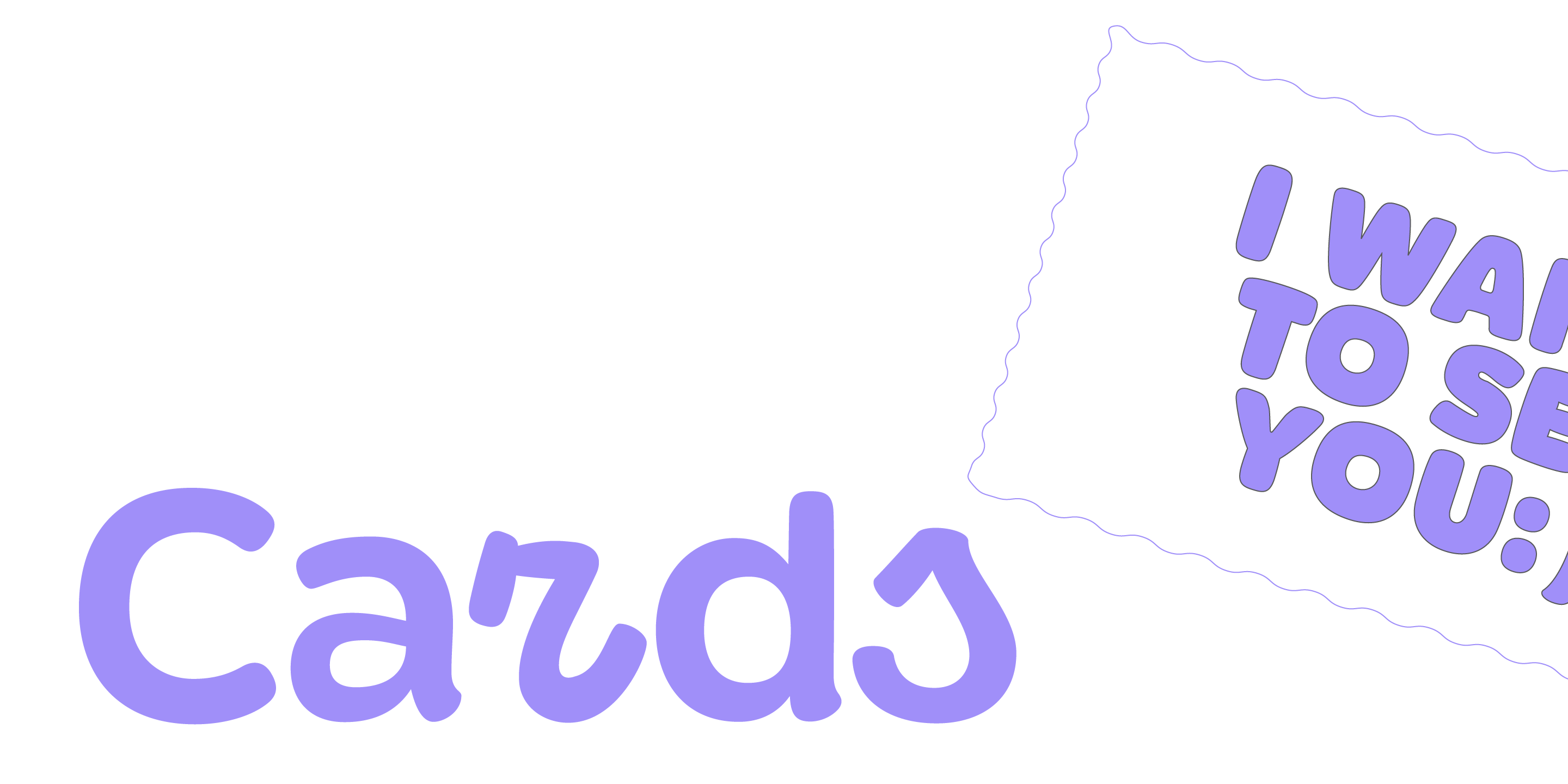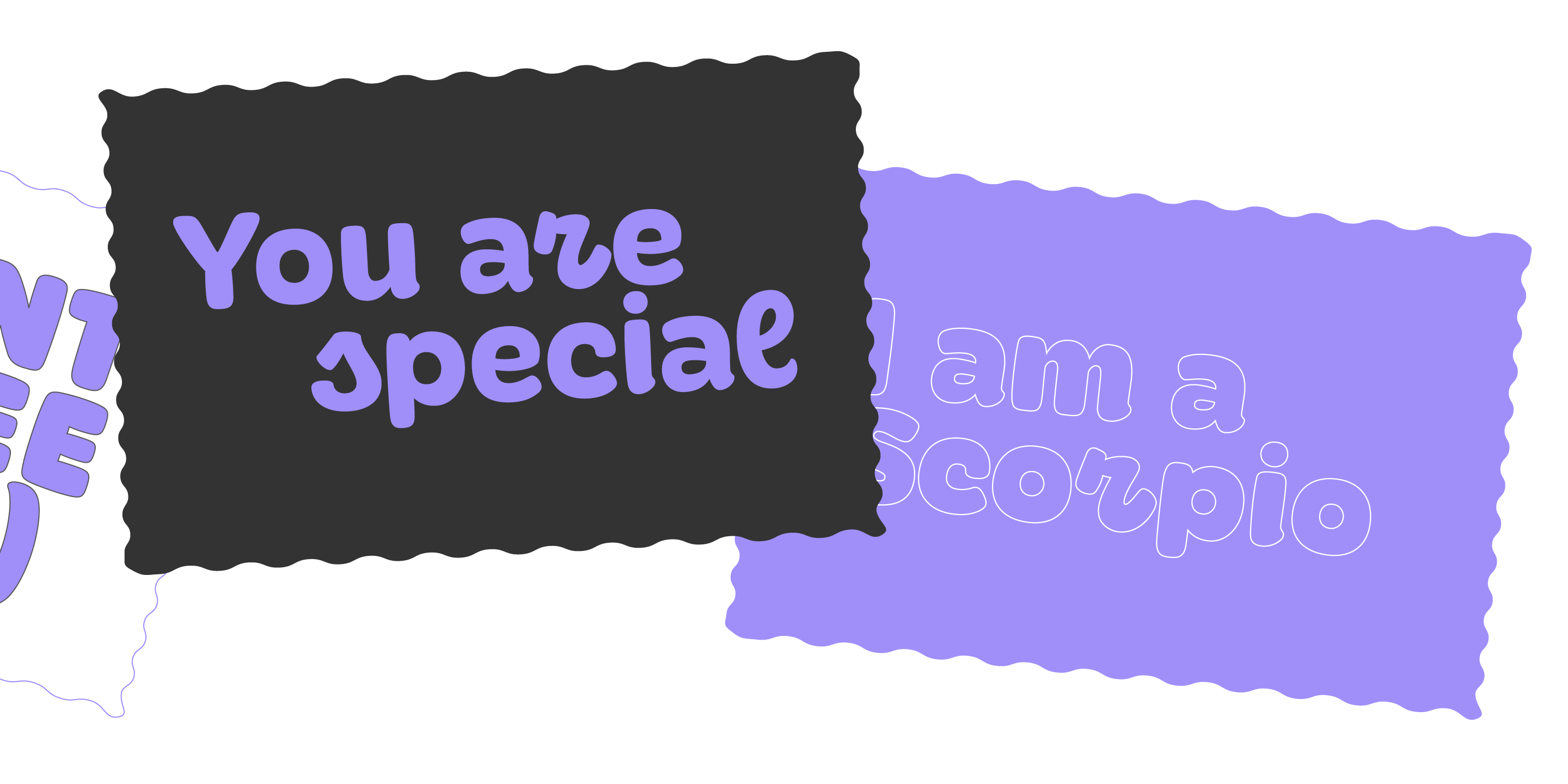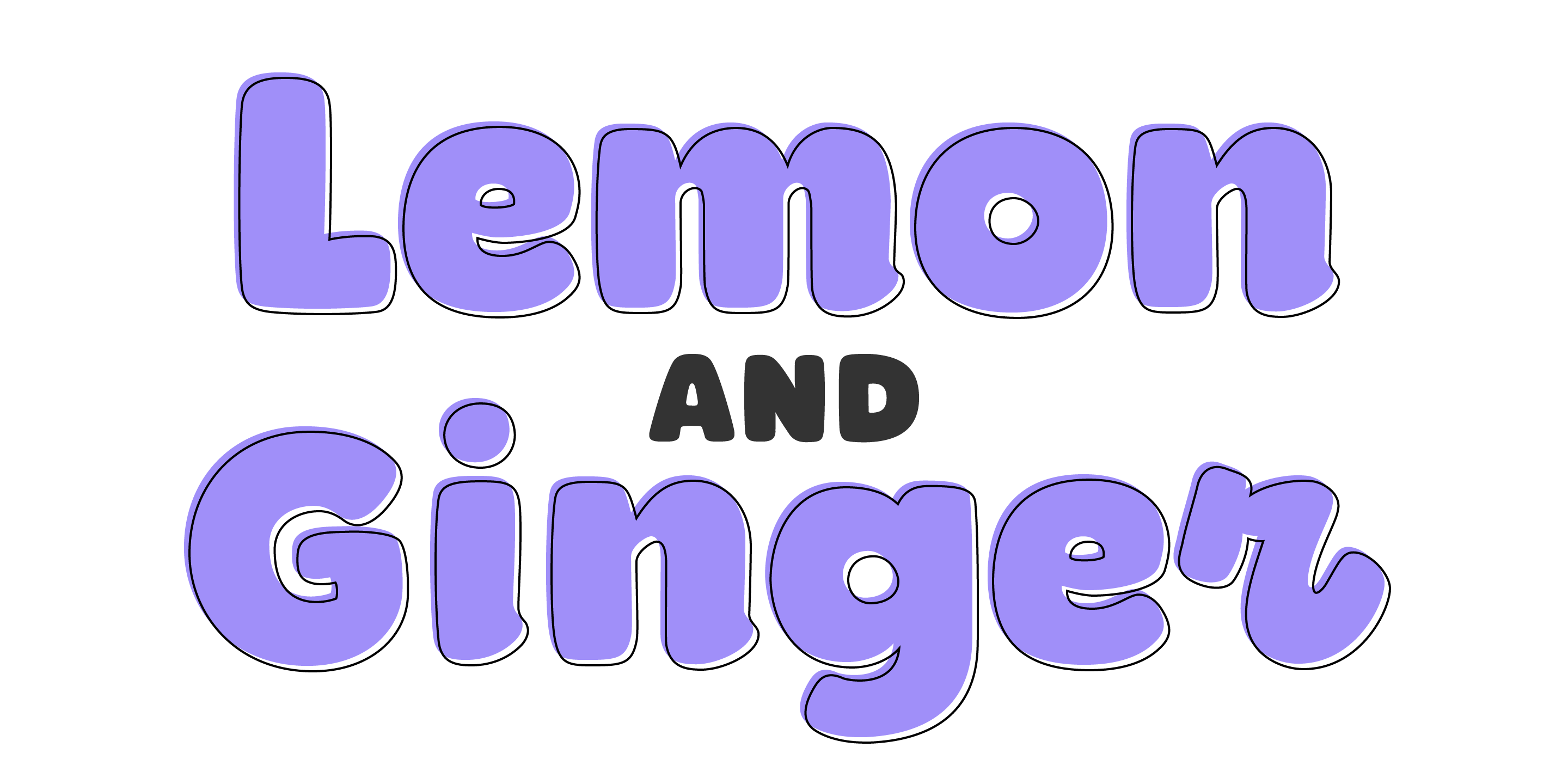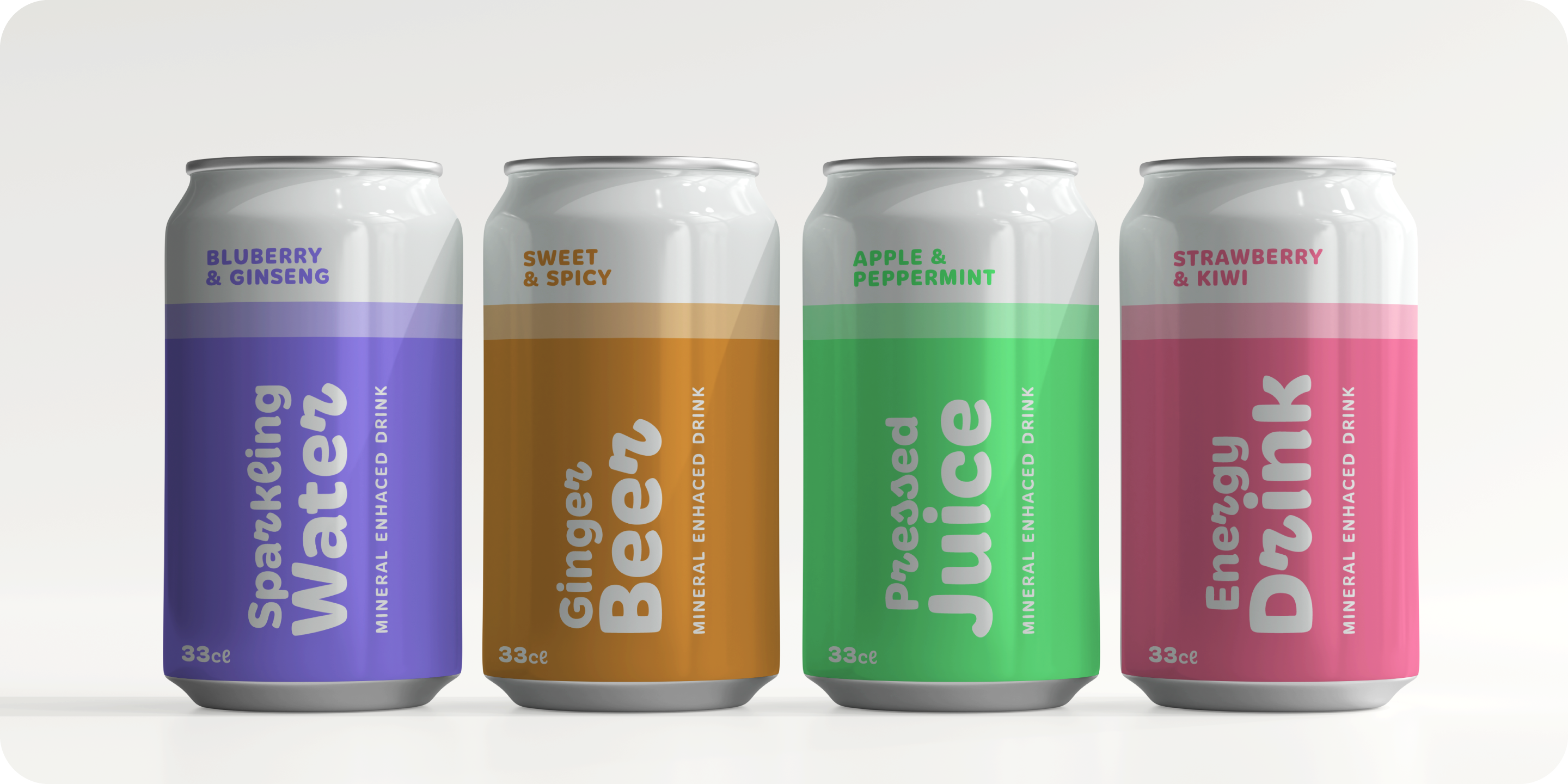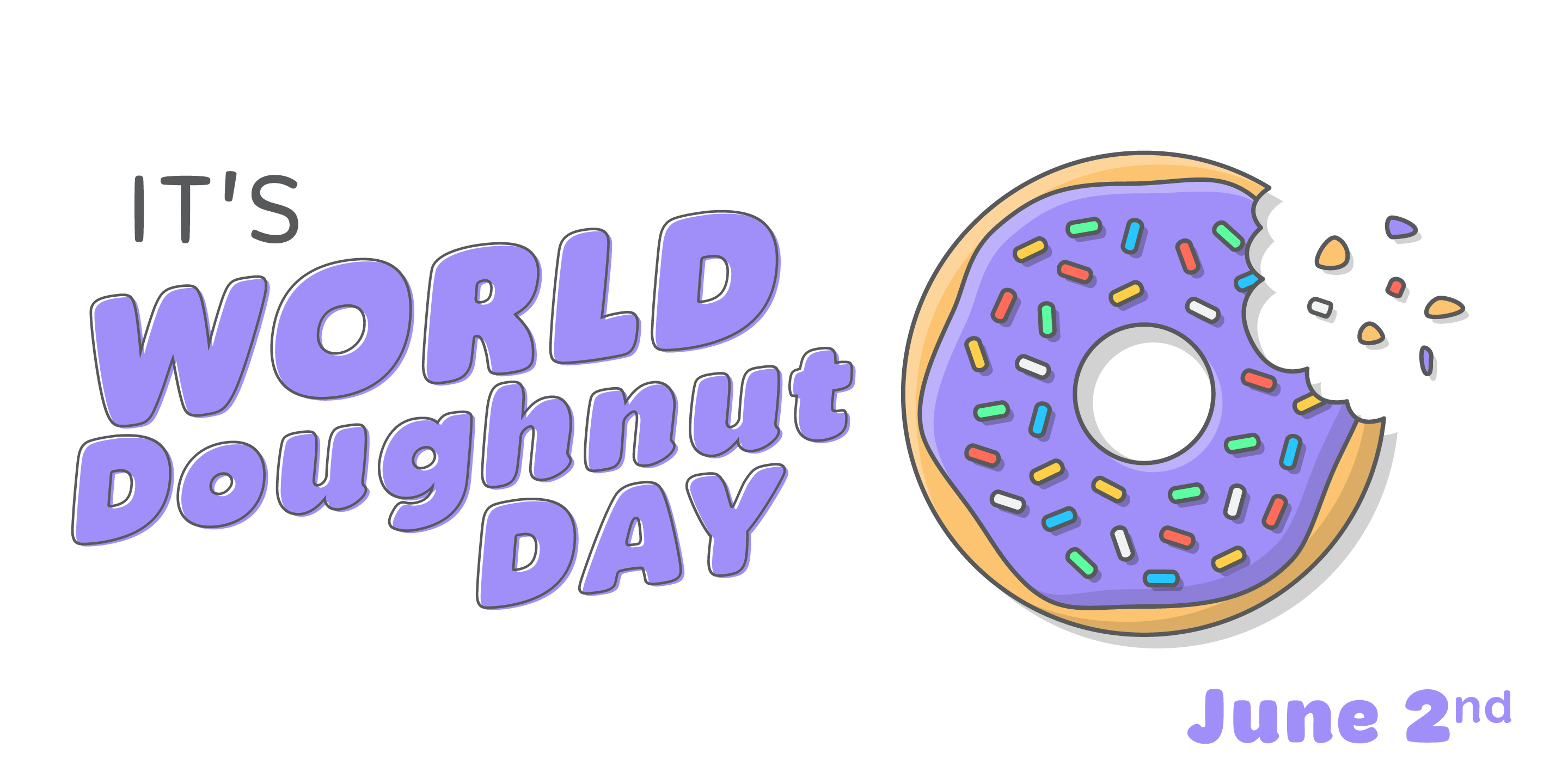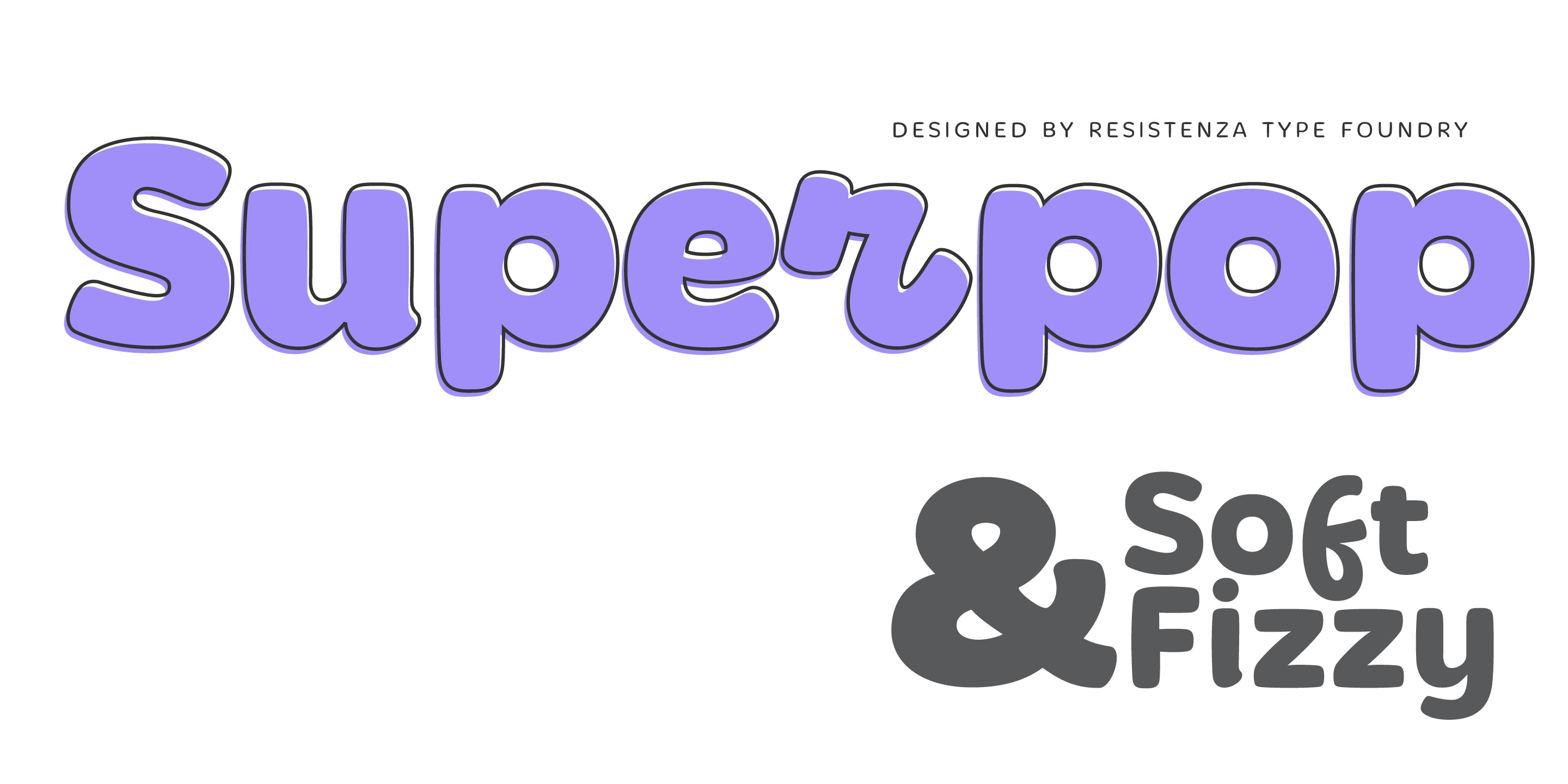
Superpop Collection
Superpop
Designed by Resistenza Type FoundrySuperpop is sweet and gentle, a rounded geometric sans with a brushy script twist. Soft and refreshing like a soda, this font gets fizzy when geometric letterforms get mixed with script shapes you wouldn’t expect in a Sans Serif. A display family with two styles ( regular and italic ), 5 weights and an outline version for each style.